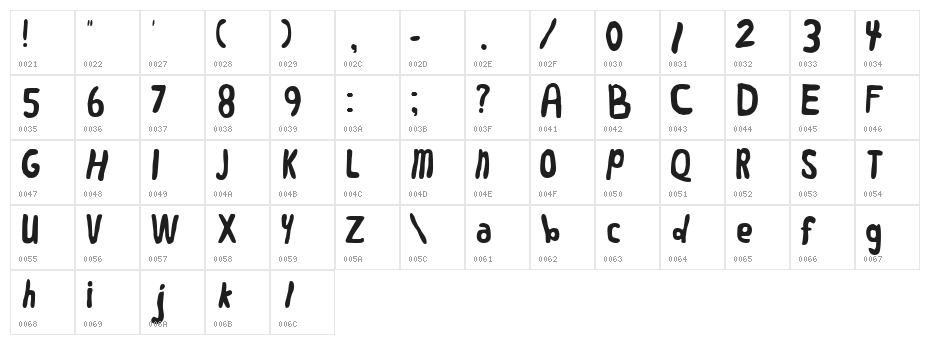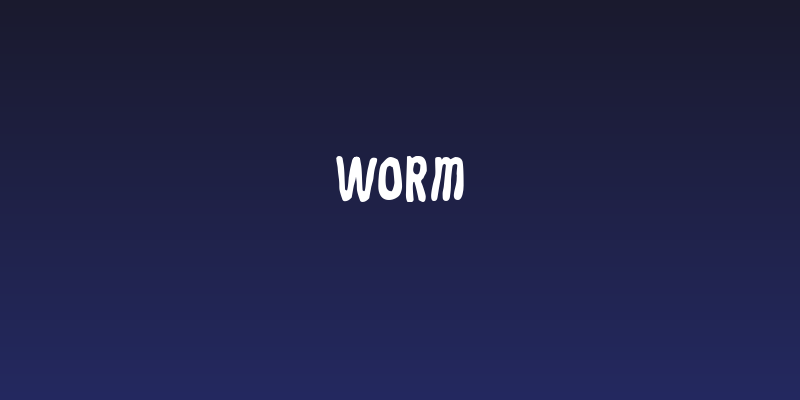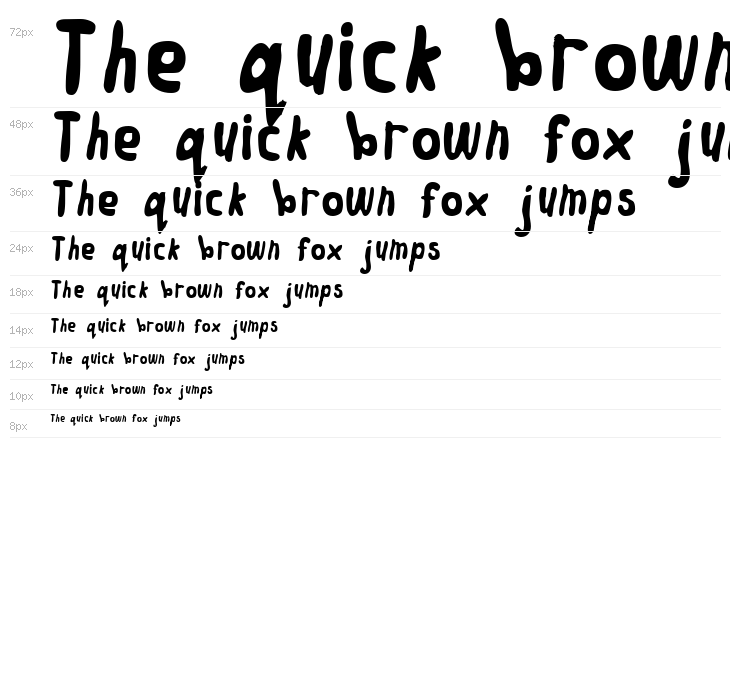
Worm Font
Worm Description
This playful and quirky font features irregular, hand-drawn characters that give it a whimsical and informal appearance. The letters are bold and slightly uneven, with a cartoonish quality that adds a sense of fun and creativity. The strokes are thick and rounded, contributing to a friendly and approachable vibe. This font is particularly eye-catching due to its unique and unconventional style, making it ideal for projects that require a touch of personality and charm. The numbers and special characters maintain the same playful aesthetic, ensuring consistency across all text elements.
| Proposed Projects | Ideal for children's books, comic strips, playful branding, and creative posters. |